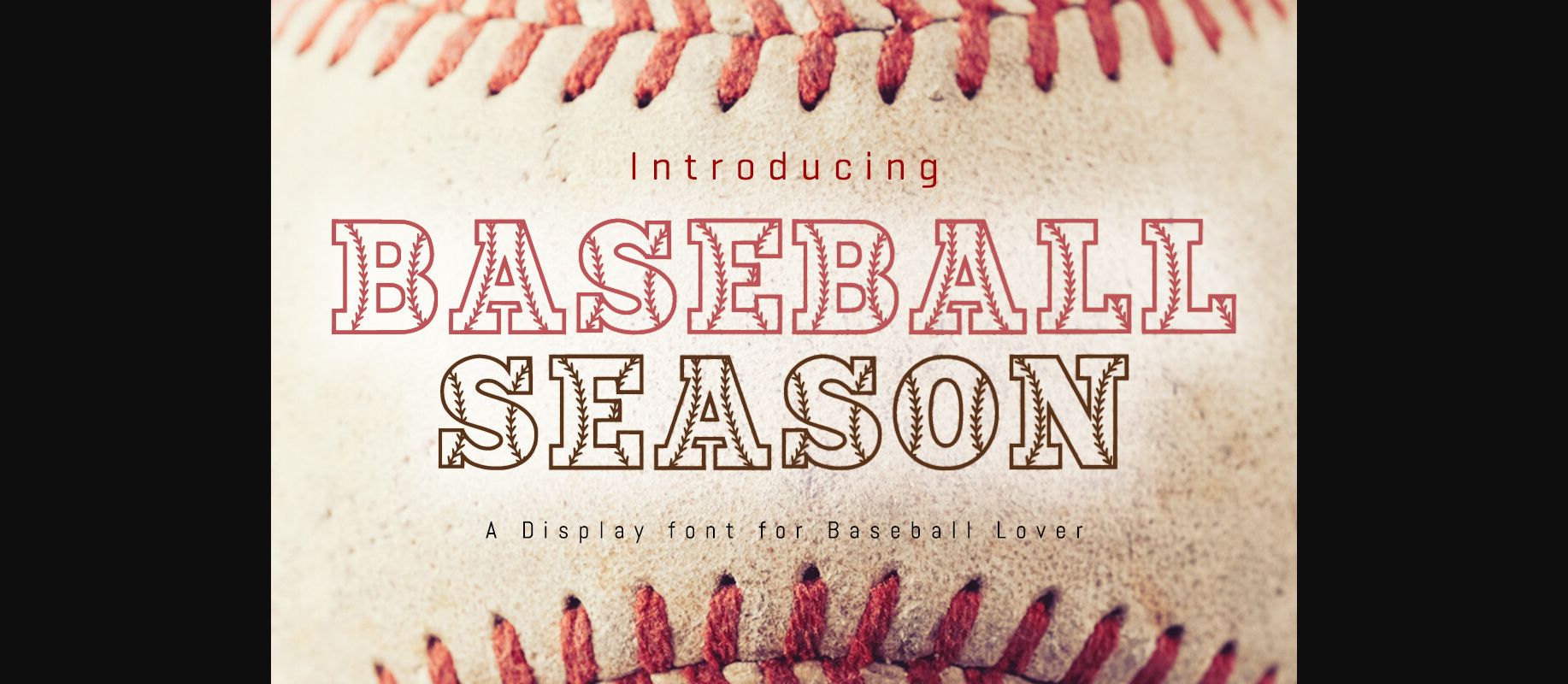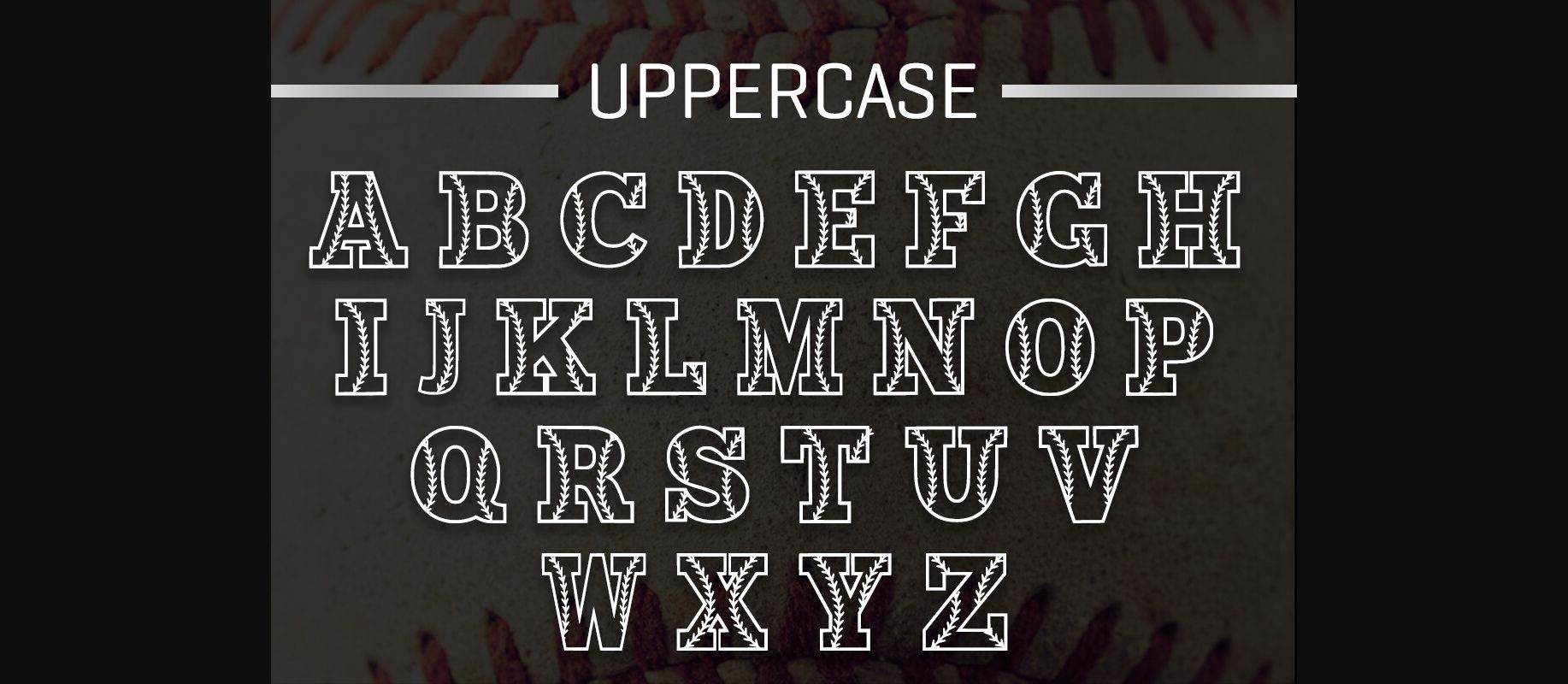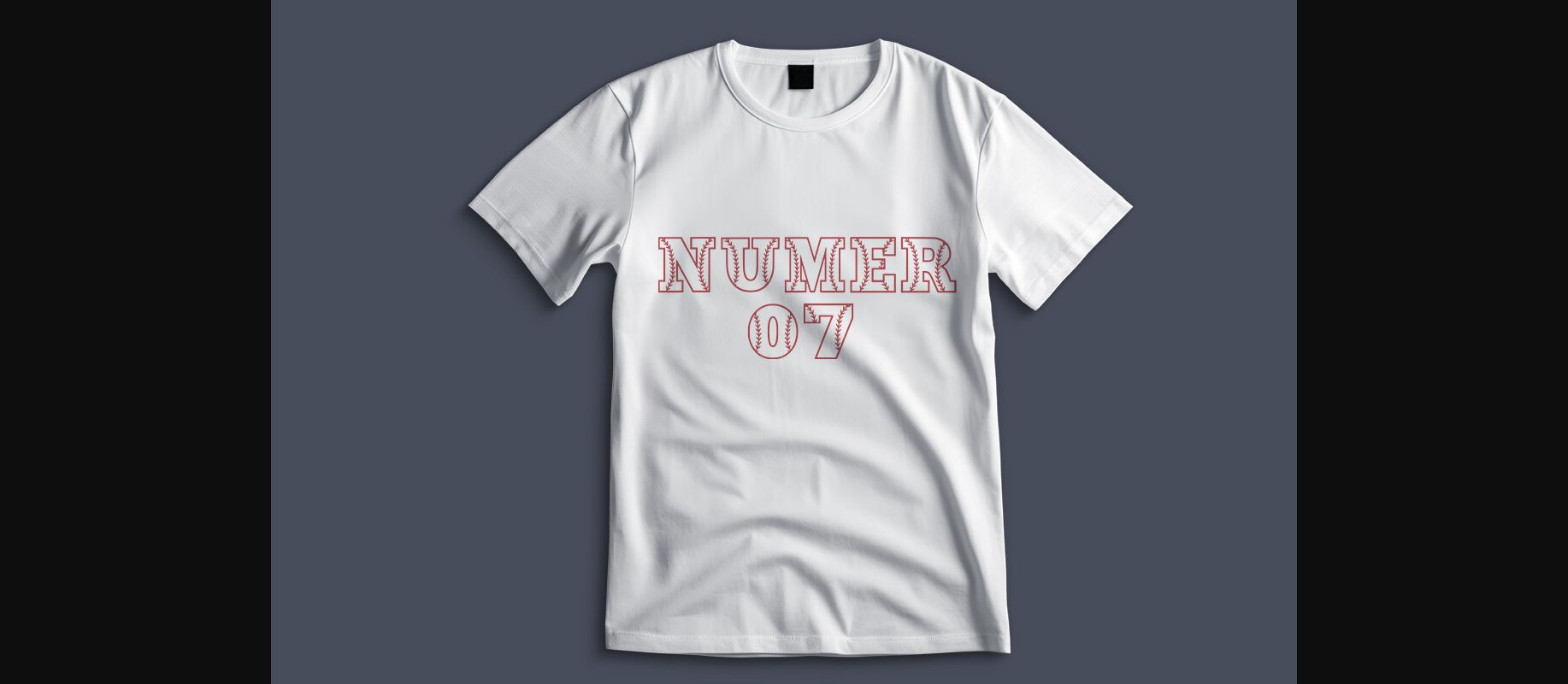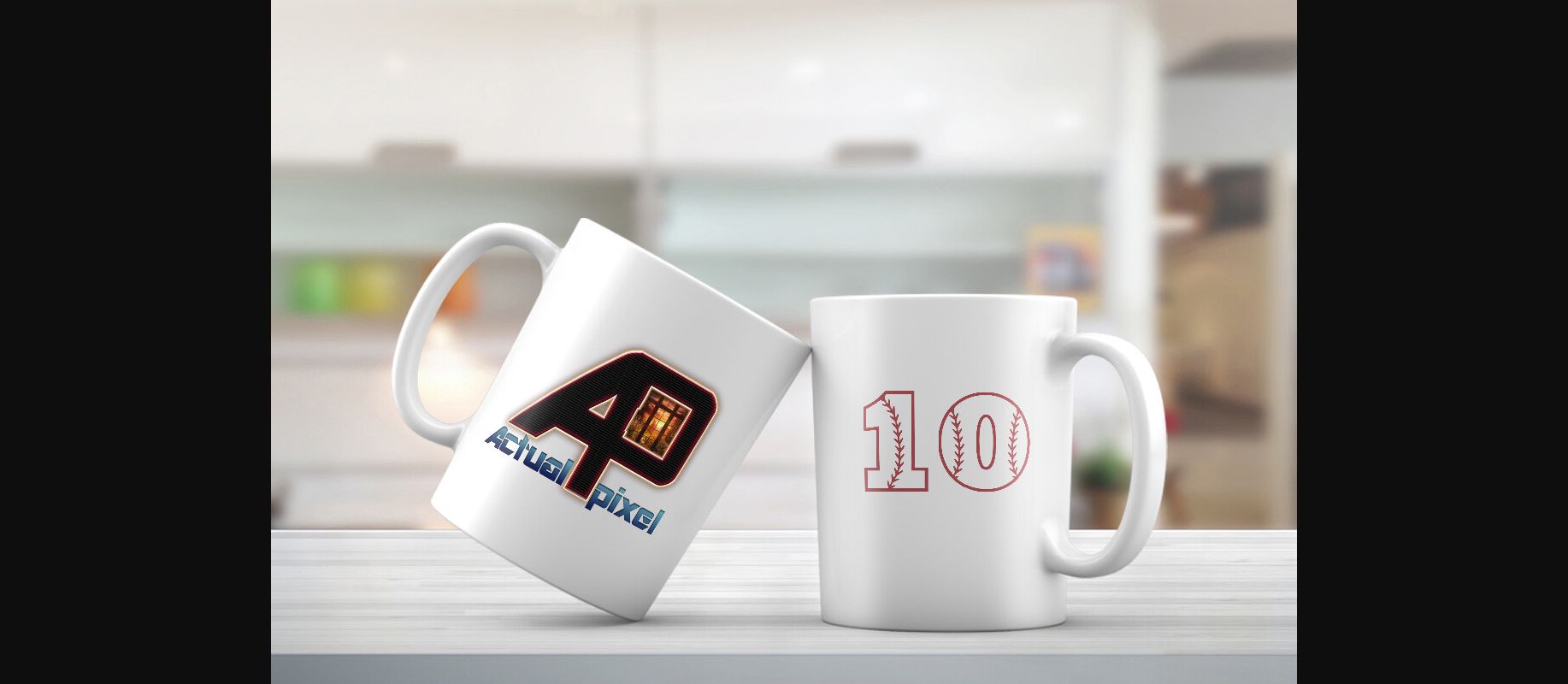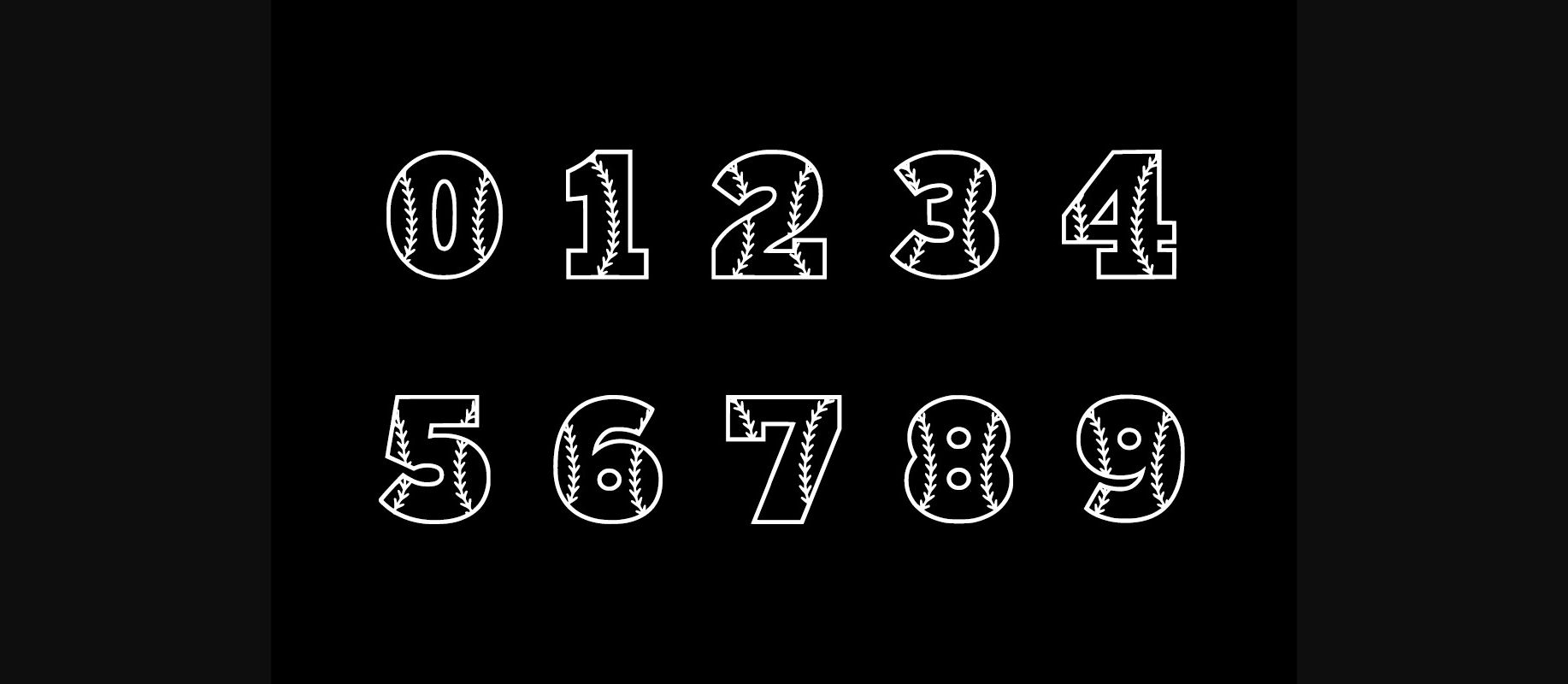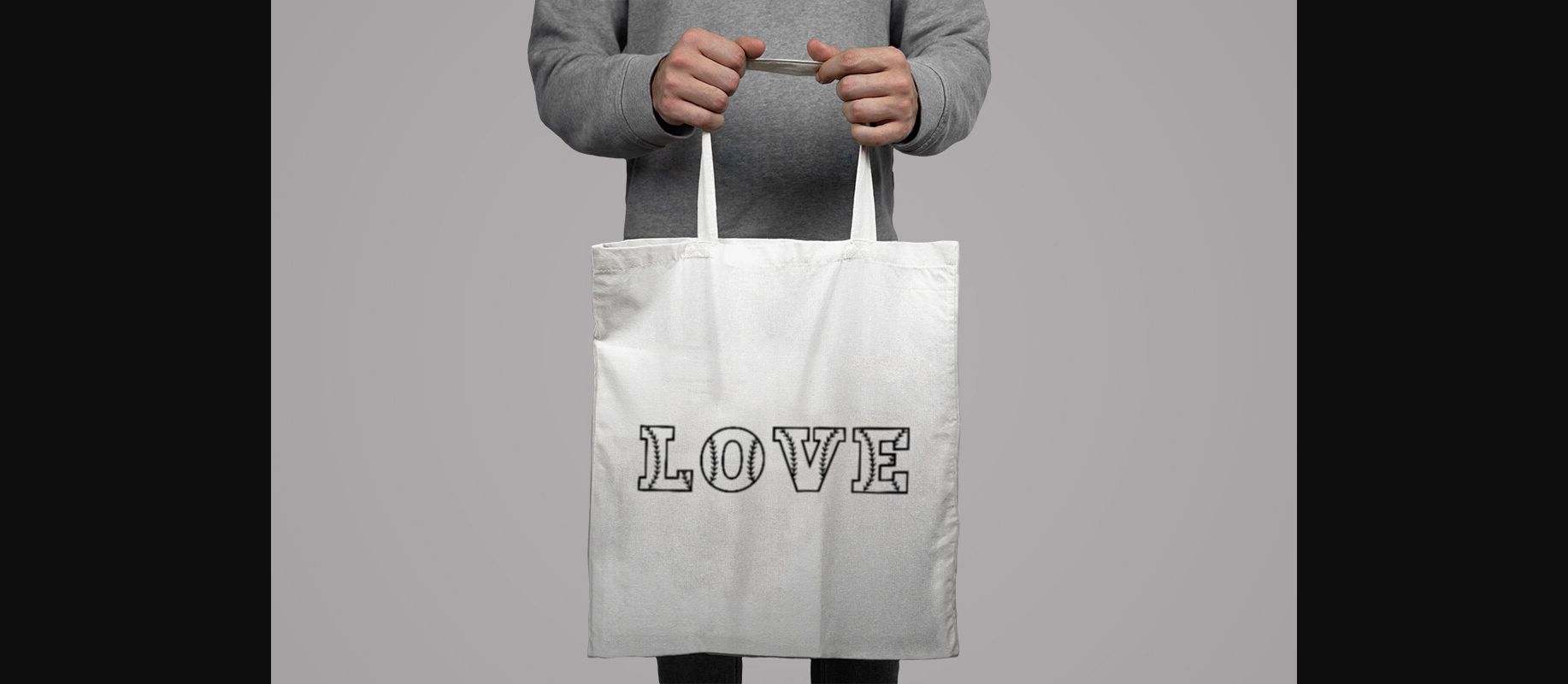
Baseball Season Font
About Baseball Season Font
Welcome the playfulness of Baseball Season, an exquisitely dynamic display font sporting an unpredictable, quirky baseline. Regardless of your project’s theme, this font serves as a versatile gem in your typeface collection. With its striking presence and unique charm, Baseball Season is designed to elevate and breathe life into any creative piece.